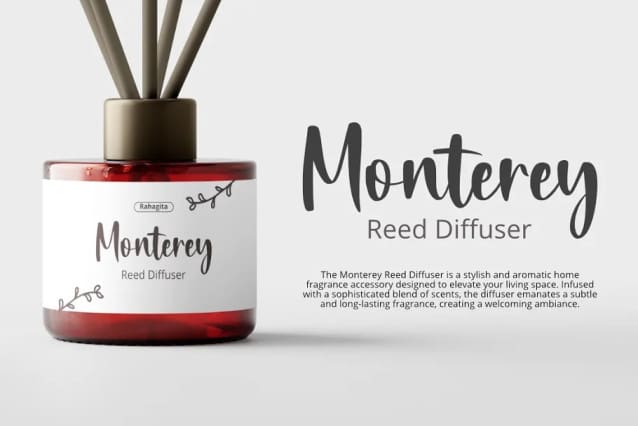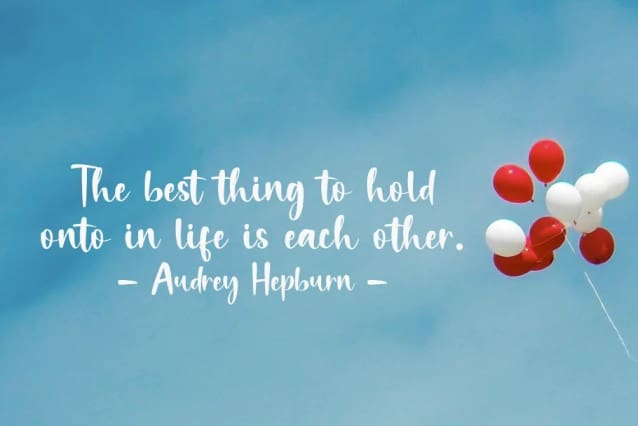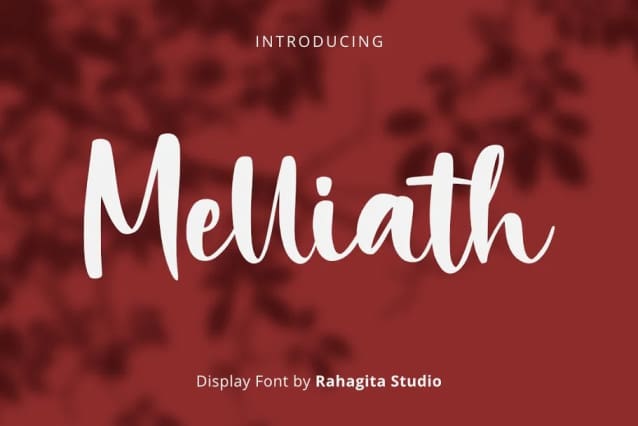
Melliath Script Font
Melliath Script Font, is more than just a font; it’s a vessel of love and sentimentality, crafted with care to infuse your projects with an irresistible allure. With its bold script and cute appeal, Melliath encapsulates the essence of warmth and affection, evoking feelings of love and tenderness with every stroke. Perfectly suited for lovely projects like invitations and weddings, this font effortlessly captures the essence of romance, adding a touch of elegance and charm to your designs. Let Melliath be the thread that weaves love into every aspect of your project, creating an atmosphere of heartfelt connection and joy. Experience the magic of Melliath Script – where every letter whispers sweet sentiments and every word echoes the beauty of love.